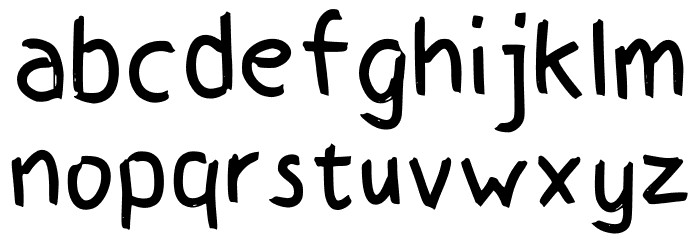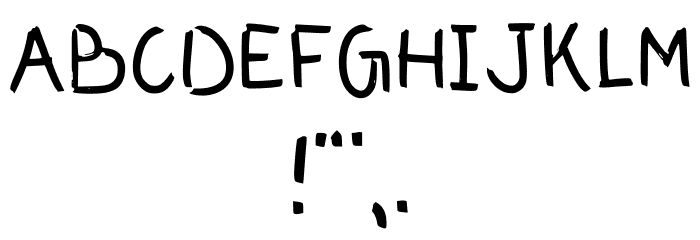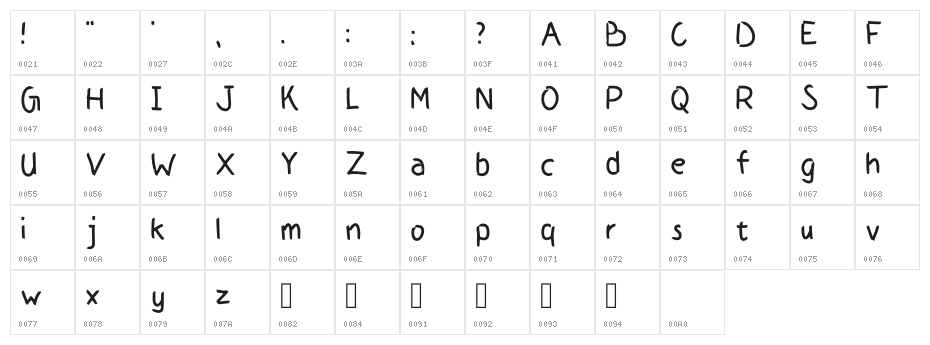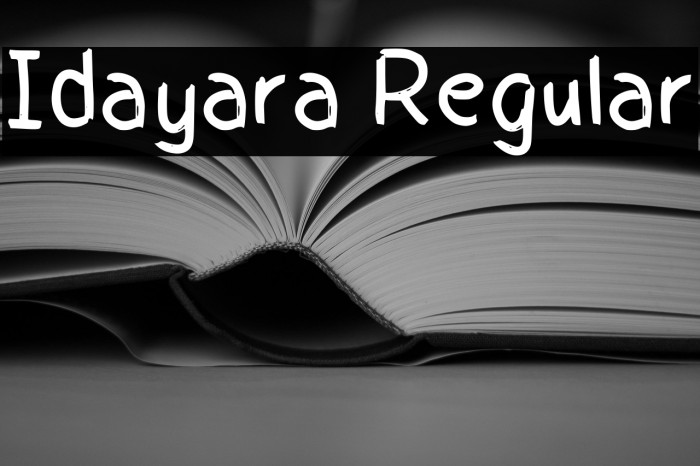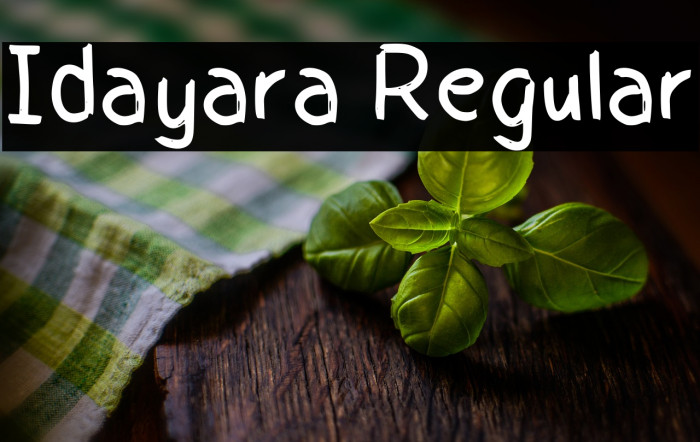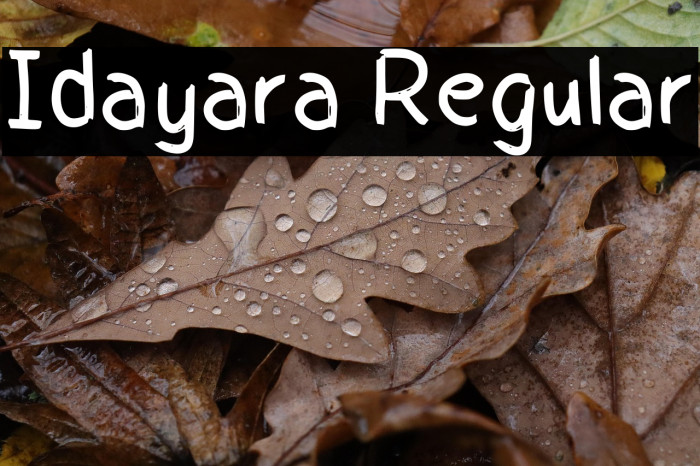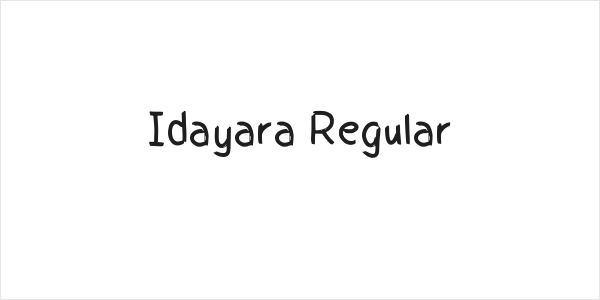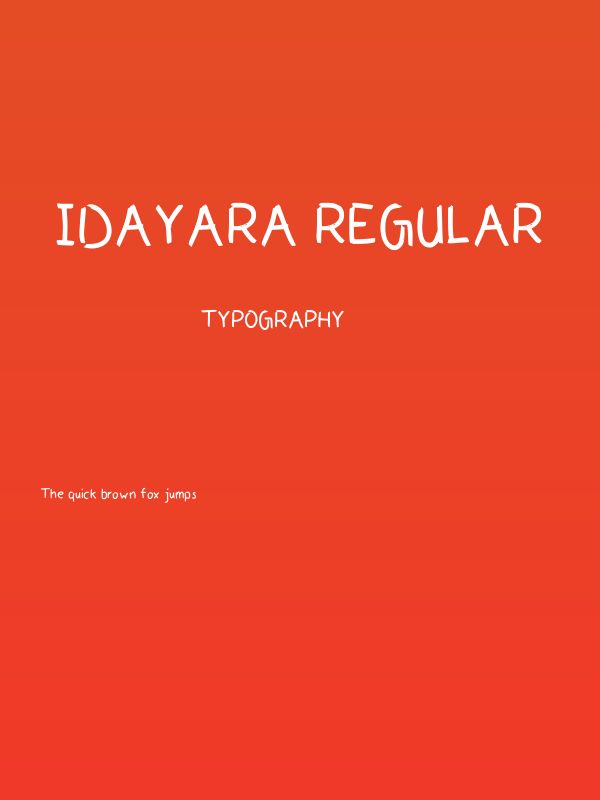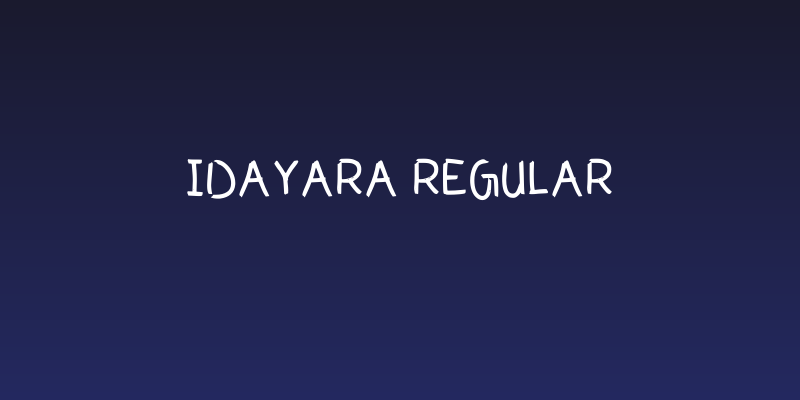
Idayara Regular Font
This font features a playful and informal handwritten style, characterized by its irregular strokes and casual appearance. The letters are slightly uneven, giving it a natural and organic feel. The uppercase and lowercase letters maintain a consistent style, with rounded edges and a slightly tilted orientation, adding to its whimsical charm. The numbers and special characters follow the same playful design, making it suitable for creative projects that require a personal touch. Its unique style stands out, making it ideal for projects that aim to convey warmth and approachability.
A playful, handwritten font with a casual and organic style.
- Proposed Projects: Ideal for greeting cards, children's books, personal blogs, and creative branding projects.
- Overall Style: Casual and playful
- Use Case: Headlines, Logos, Creative projects